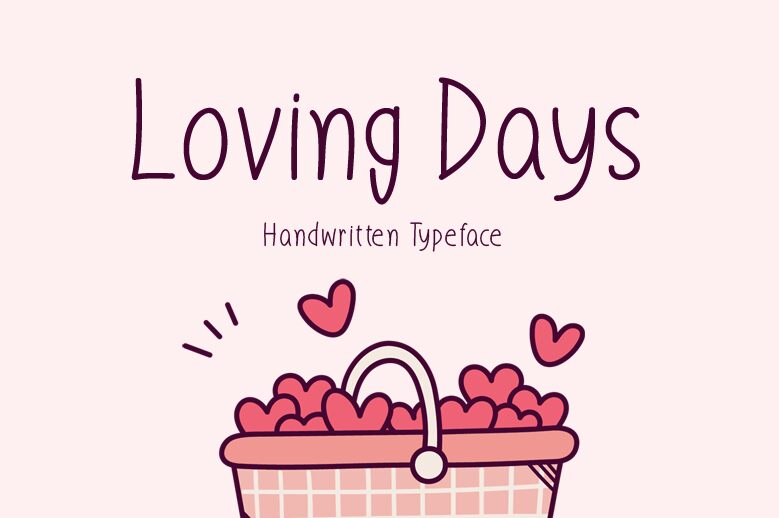
Loving Days is a delightful handwritten font designed by Md Shohail Bhuian. Its light weight and condensed width make it an ideal choice for creating romantic greeting cards, wedding invitations, or love letters. This font's whimsical style adds a unique touch to any project, whether it's designing a logo for a bakery or creating an Instagram post for a fashion brand. The Loving Days font is also perfect for crafting personalized gifts or adding playful captions to social media posts. With its charming and versatile design, this font will surely add some love and personality to your next creative project.
Loving Days